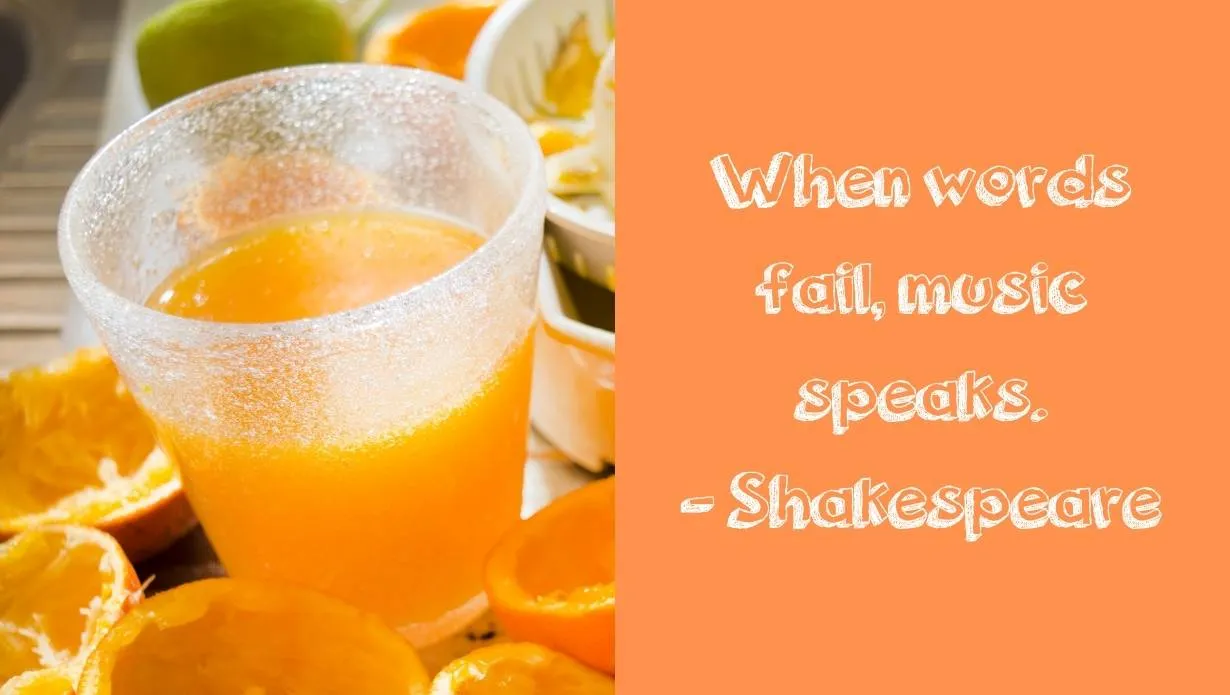
Orange Juice Font was designed by a very famous Brittney Murphy Design. This stylish font belongs to the Cartoon typeface. This awesome Font has keen and clean features. This cozy typeface contains a lot of various variations and international characters as well.
Orange Juice Font Family
This tremendous font family has styles like Regular, Italic, Bold, and Black. This free Font has a unique charm that helps to create masterpieces. For textual designs, you will have to use its copy and paste. Forte Font is one of the most similar to this font.